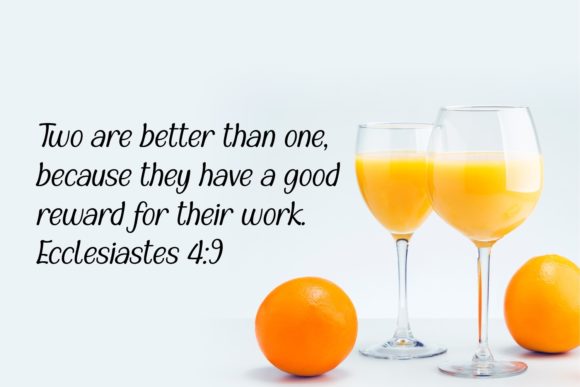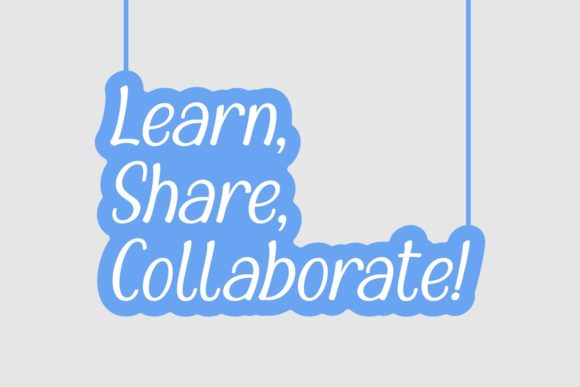
Make It Together Font
About Make It Together Font
Make It Together is a charming and elegant handwritten font that adds a touch of sophistication and grace to your designs. With its delicate and flowing style, it enhances the beauty of your creative ideas and brings them to life.
The well-balanced characters of Make It Together make it a versatile font that can be used across a wide range of design projects. Whether you’re working on logos, branding, invitations, stationery, or social media posts, this font will elevate your designs and give them a polished and refined look.
Make It Together exudes an air of elegance and beauty. Its flowing strokes and graceful curves create a sense of harmony and balance, making it particularly suitable for designs that aim to convey a sense of sophistication and class. From wedding invitations to high-end branding, this font adds a touch of luxury to any project.
One of the strengths of Make It Together is its ability to bring out the beauty in your creative ideas. The font’s flowing and natural style complements various themes and concepts, allowing it to adapt effortlessly to your vision. Whether you’re designing for a romantic wedding, a whimsical celebration, or a modern minimalist aesthetic, Make It Together will enhance the visual appeal of your designs.
By adding Make It Together to your font library, you gain access to its unique and well-crafted characters. Its ligatures and alternate glyphs provide even more design possibilities, allowing you to customize and personalize your creations. The font’s versatility and attention to detail ensure that your designs stand out and leave a lasting impression.
In summary, Make It Together is a delicate and elegant handwritten font that brings a sense of sophistication and beauty to your creative projects. Its well-balanced characters and flowing style make it a versatile choice for various design purposes. By incorporating Make It Together into your designs, you can create captivating and visually stunning artwork that truly comes alive.